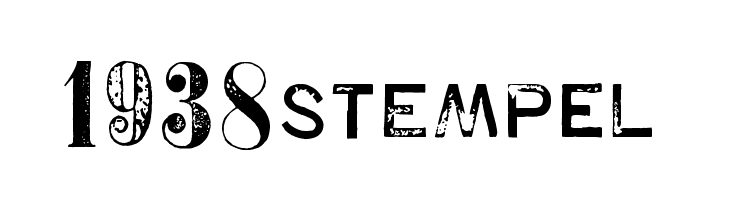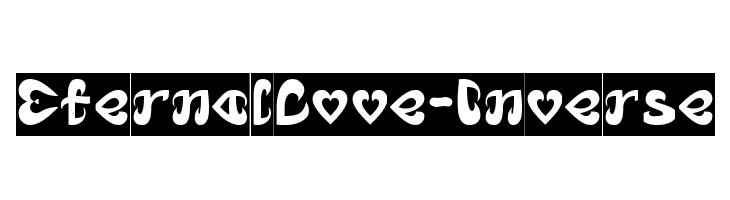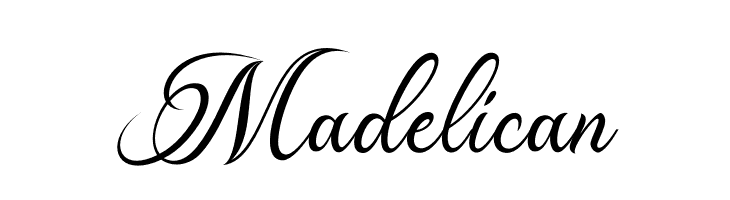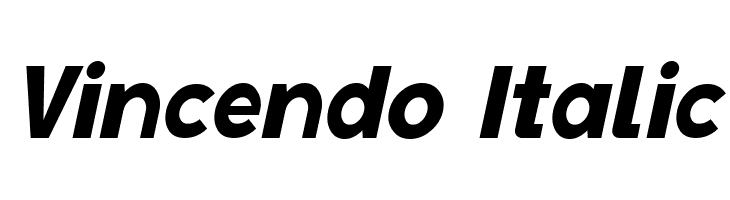
A modern, bold italic font with smooth curves and a dynamic style.
A modern, geometric font with characters enclosed in square boxes.
A dynamic and flowing script font with elegant cursive letterforms.
A bold, distressed font with a grunge aesthetic and rugged appearance.
An elegant, flowing script font with thin, continuous strokes.
A modern, geometric font with clean lines and rounded edges.